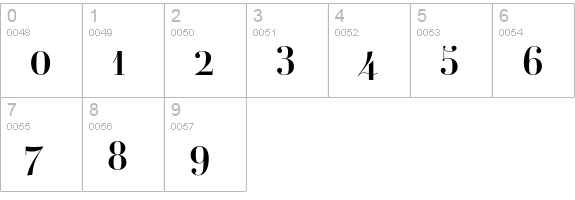
Ambroise Regular is the standard, neutral variant in the Ambroise typeface family \xE2\x80\x94 well suited to general body text, paragraphs, and standard typographic work.
Ambroise Regular is a timeless and elegant font that exudes sophistication and style. With its classic serif design and graceful curves, Ambroise Regular is perfect for adding a touch of sophistication to any project. Whether you're designing a wedding invitation, creating a logo, or crafting a stylish blog post, Ambroise Regular is sure to elevate your typography game. The best part? Ambroise Regular is completely free to download at FontsMarket.com. Yes, you read that right - this stunning font can be yours at no cost! Don't miss out on the opportunity to enhance your designs with the beauty of Ambroise Regular. Download it today and let your creativity soar.